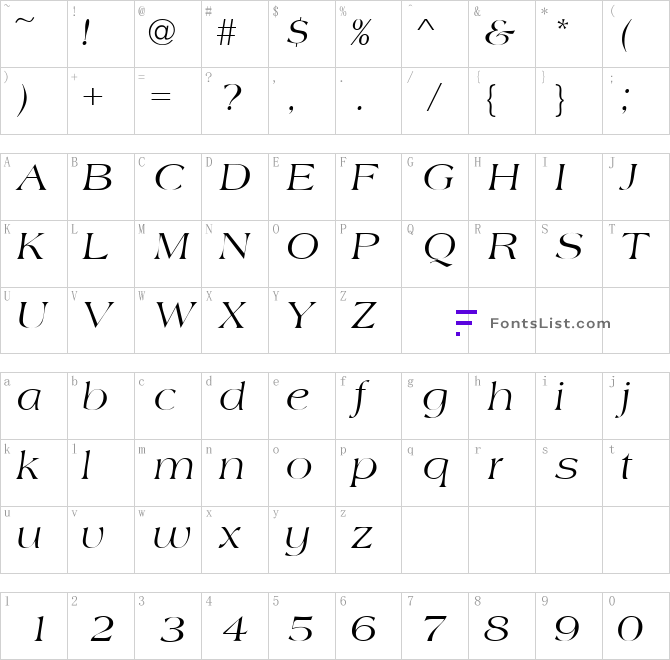
- Font Name:AmiDB
AmiDB-Italic.ttf is a very beautiful artistic font, AmiDB-Italic.ttf is widely used in the design and printing of various books and pictures,AmiDB-Italic.ttf has a strong visual impact,AmiDB-Italic.ttf is a commonly used font in newspapers, magazines and books, and is used in posters, e-commerce Poster design, store design, logo design, font design and other fields.AmiDB-Italic.